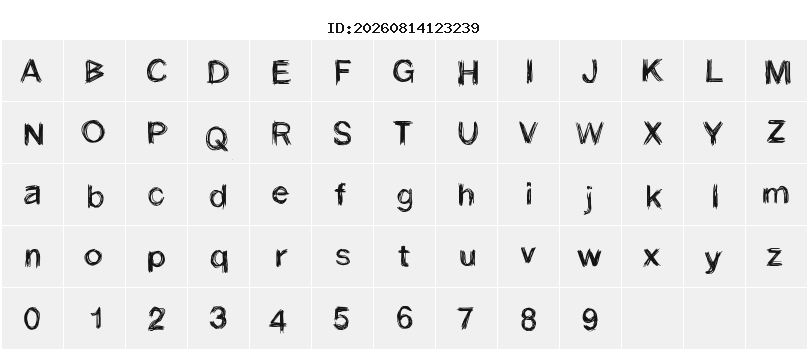
• Font Name: Stroke
• Full Font Name: Stroke
• PostScript Name: Stroke
About Stroke.ttf
Stroke.ttf is a modern, elegant sans-serif font designed for ultimate readability and visual harmony. Perfect for branding, headlines, web design, and print materials.